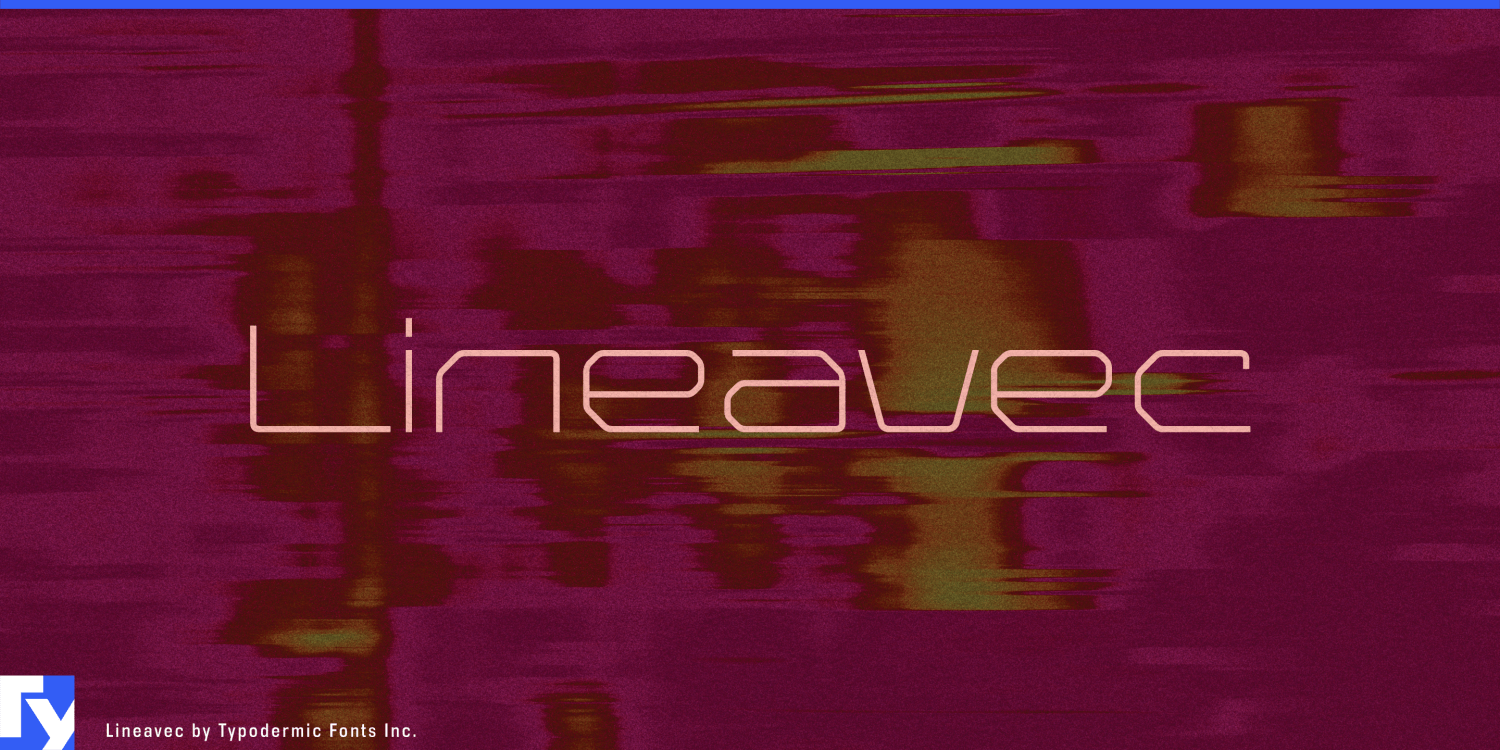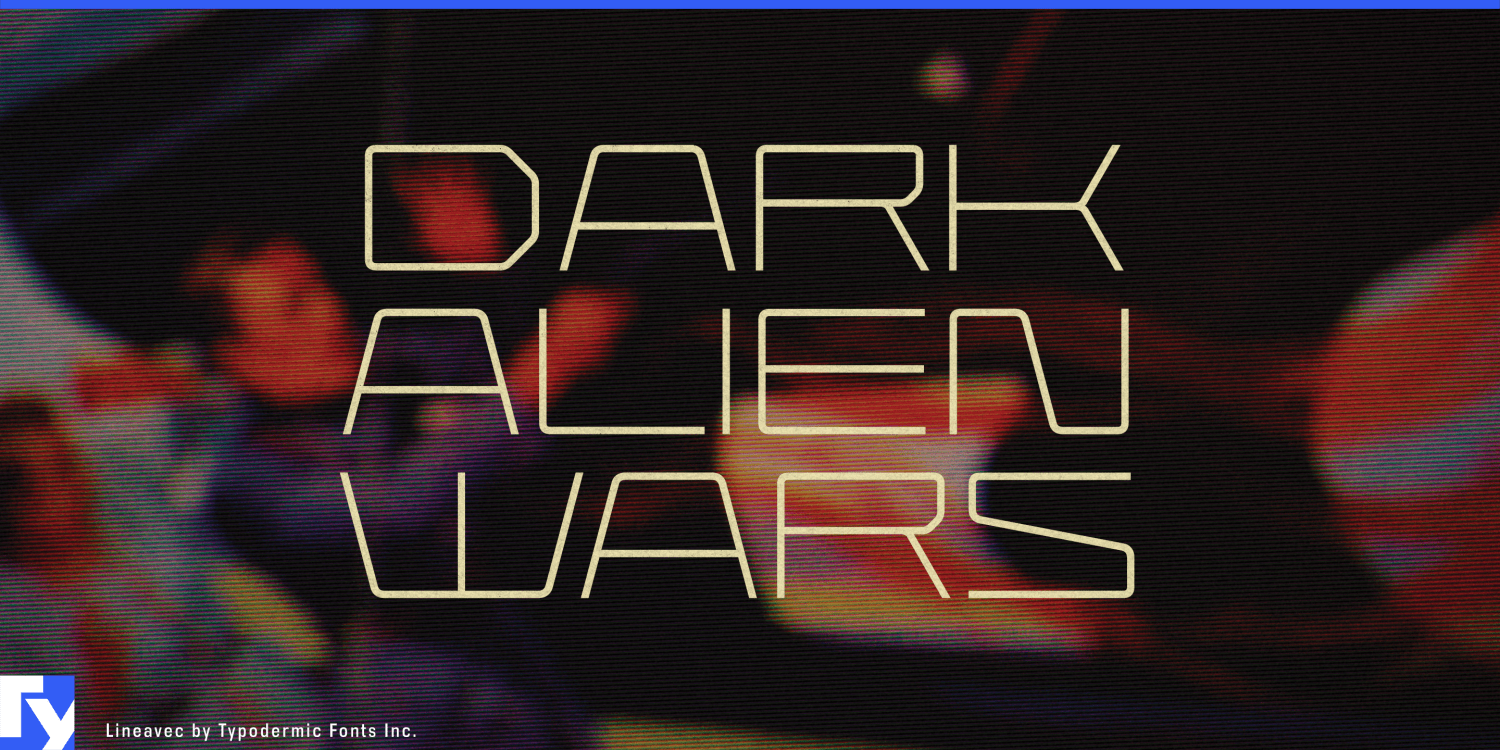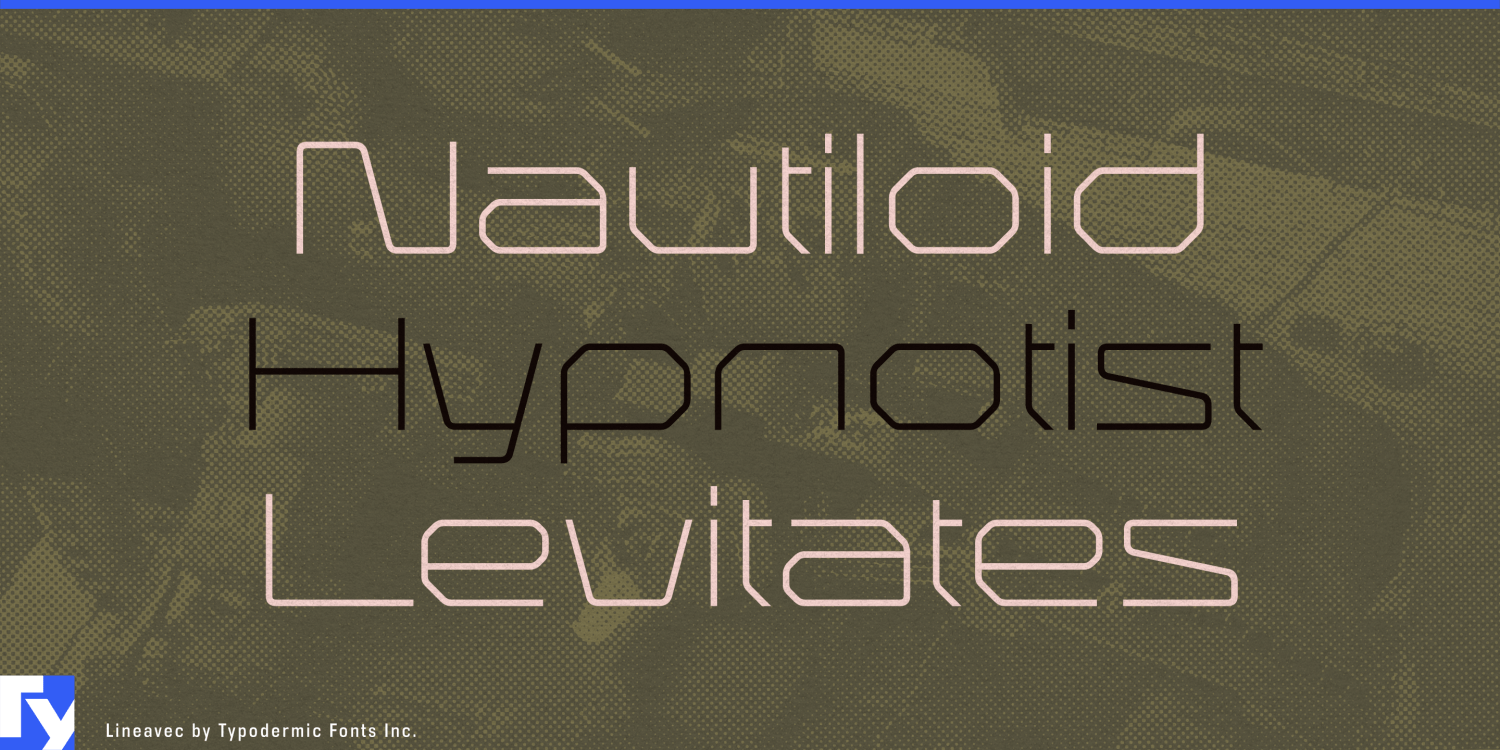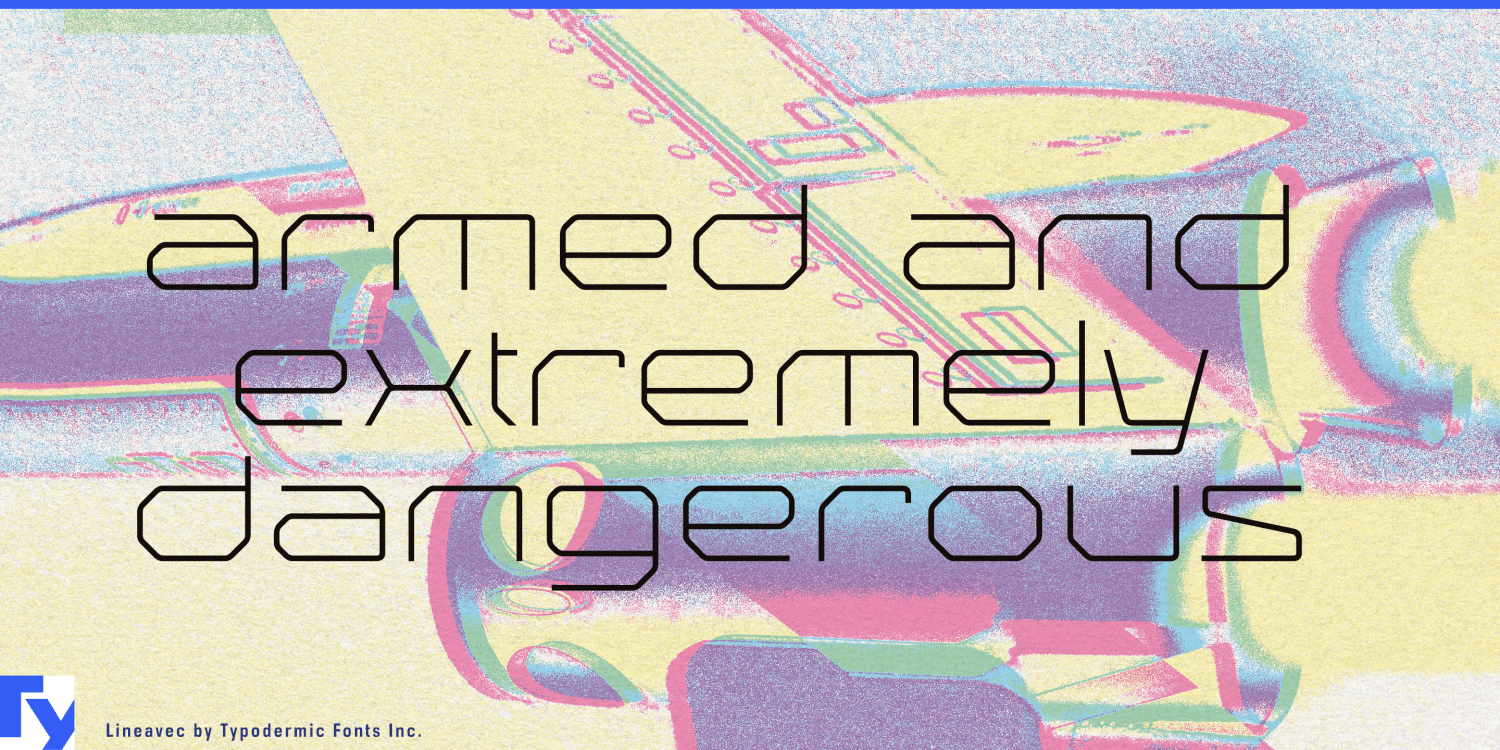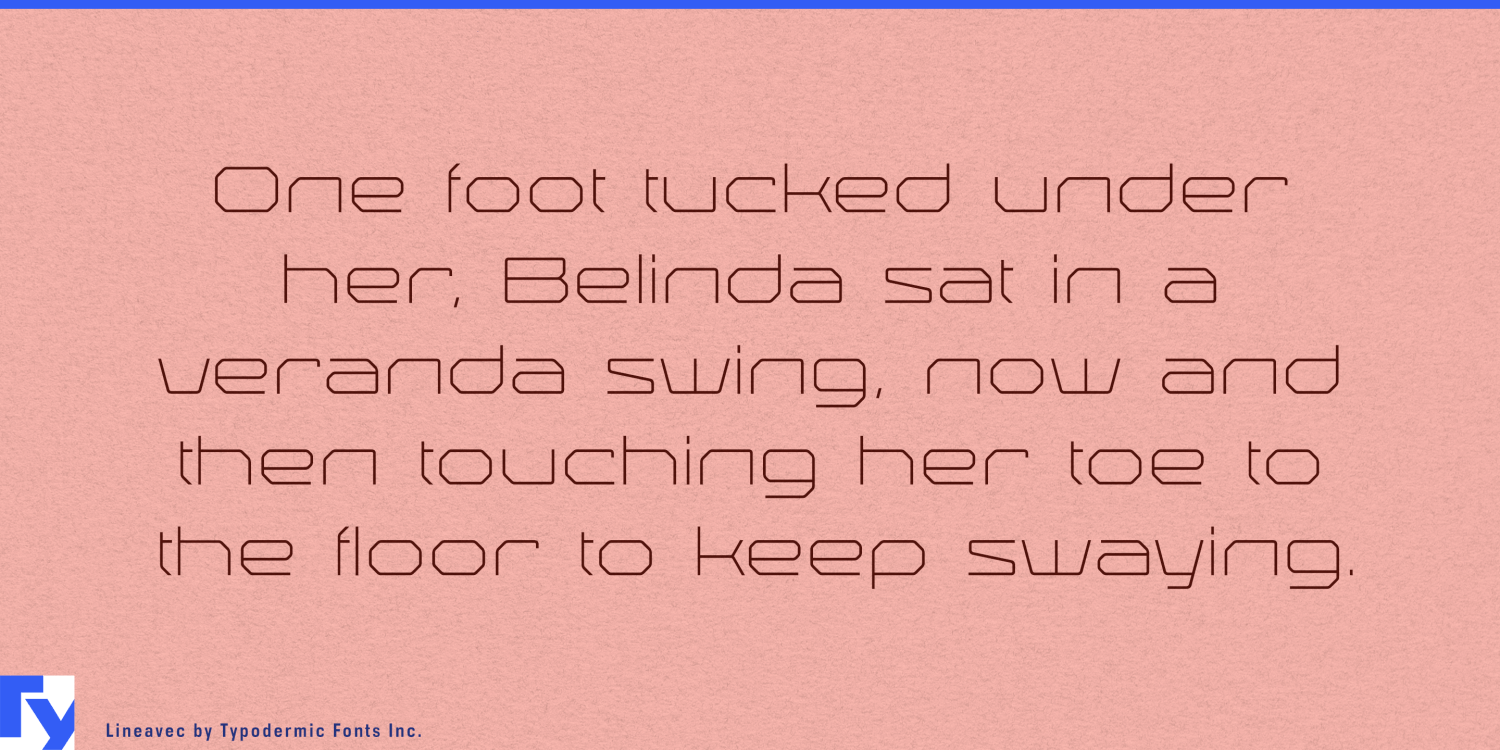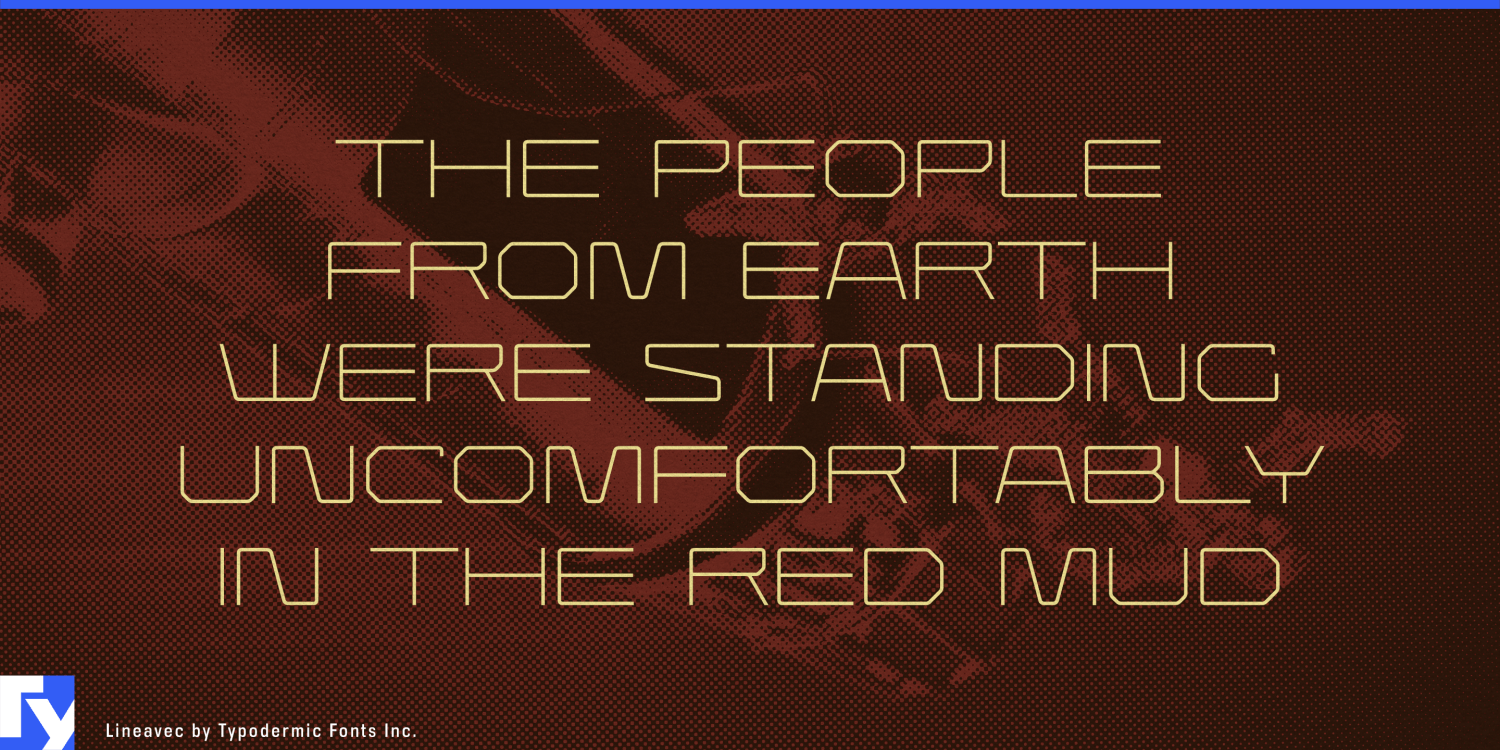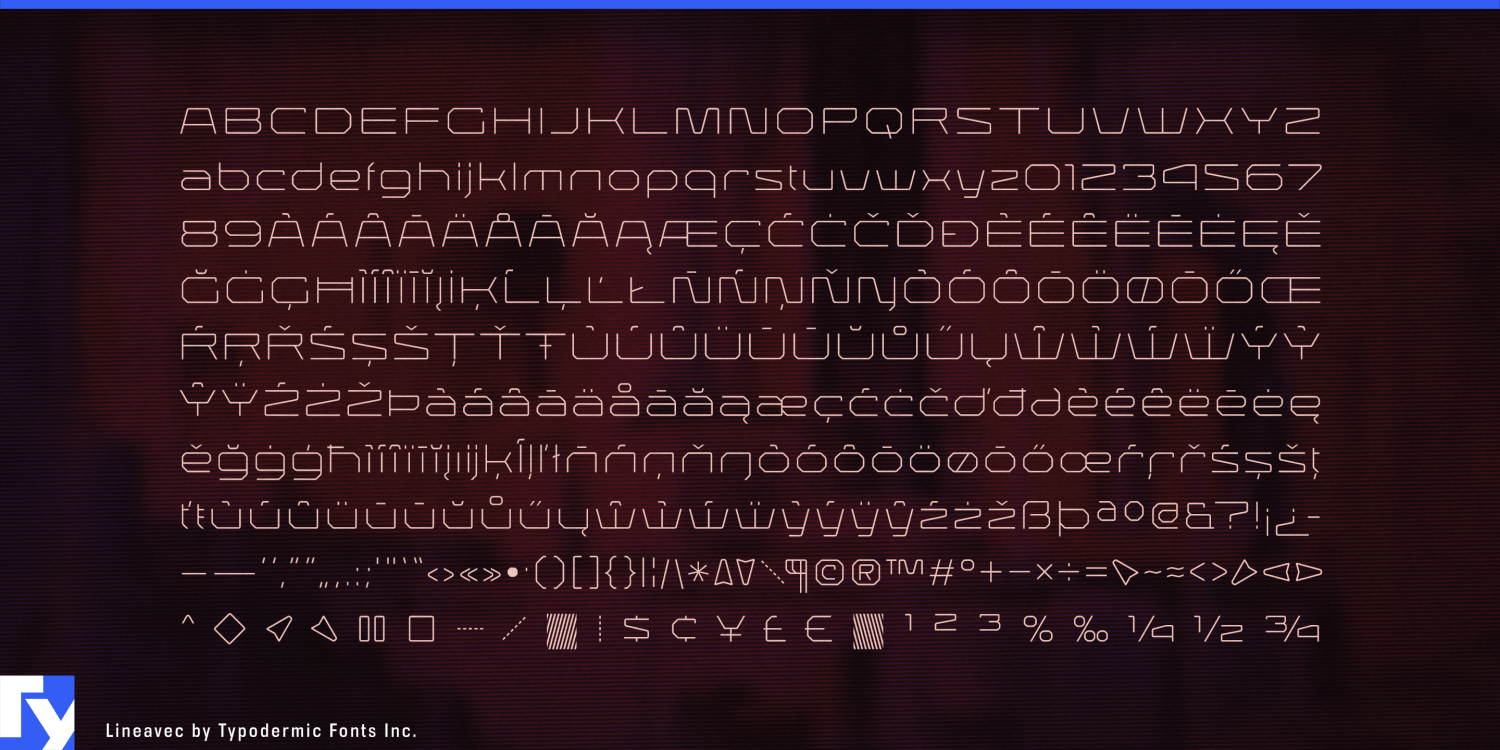
Lineavec
Font Family by Typodermic
Thin futuristic lettering can easily become decorative. Lineavec has a more specific logic: its broad monoline forms behave like paths. Strokes turn corners, cross wide spans and connect through the alphabet like routed signals rather than filled shapes.